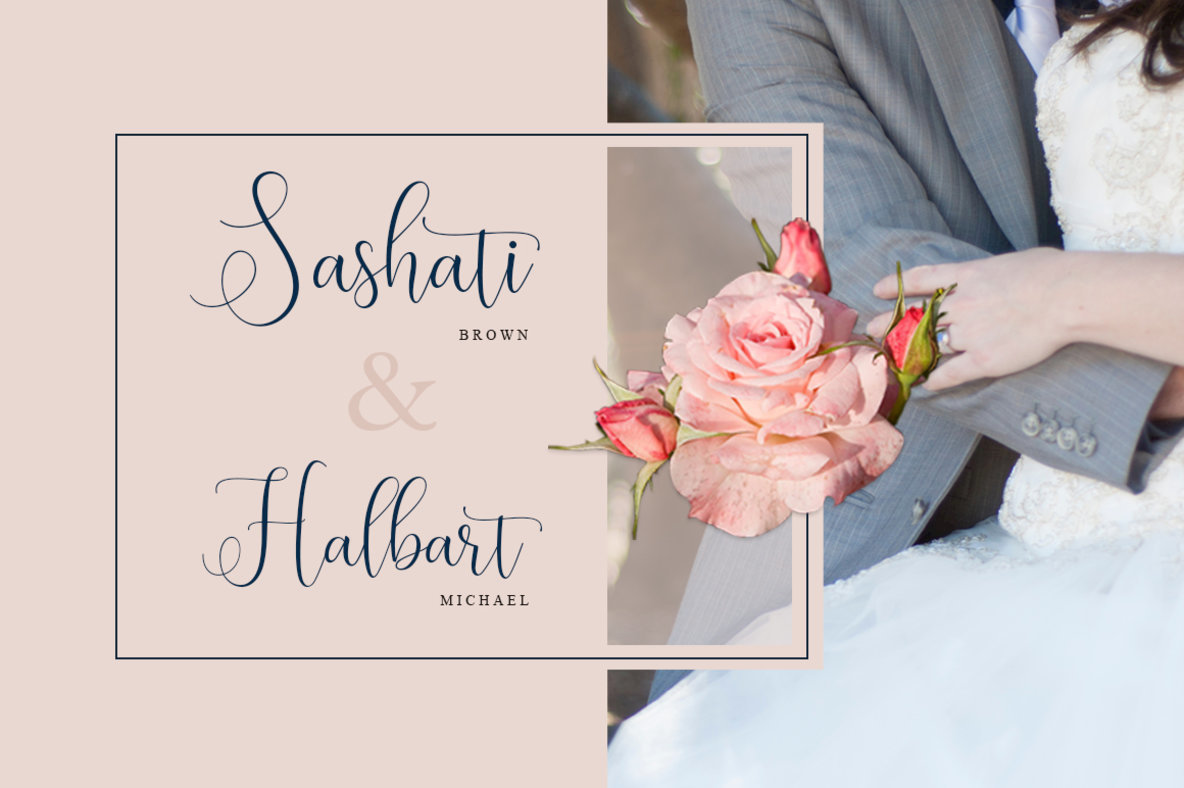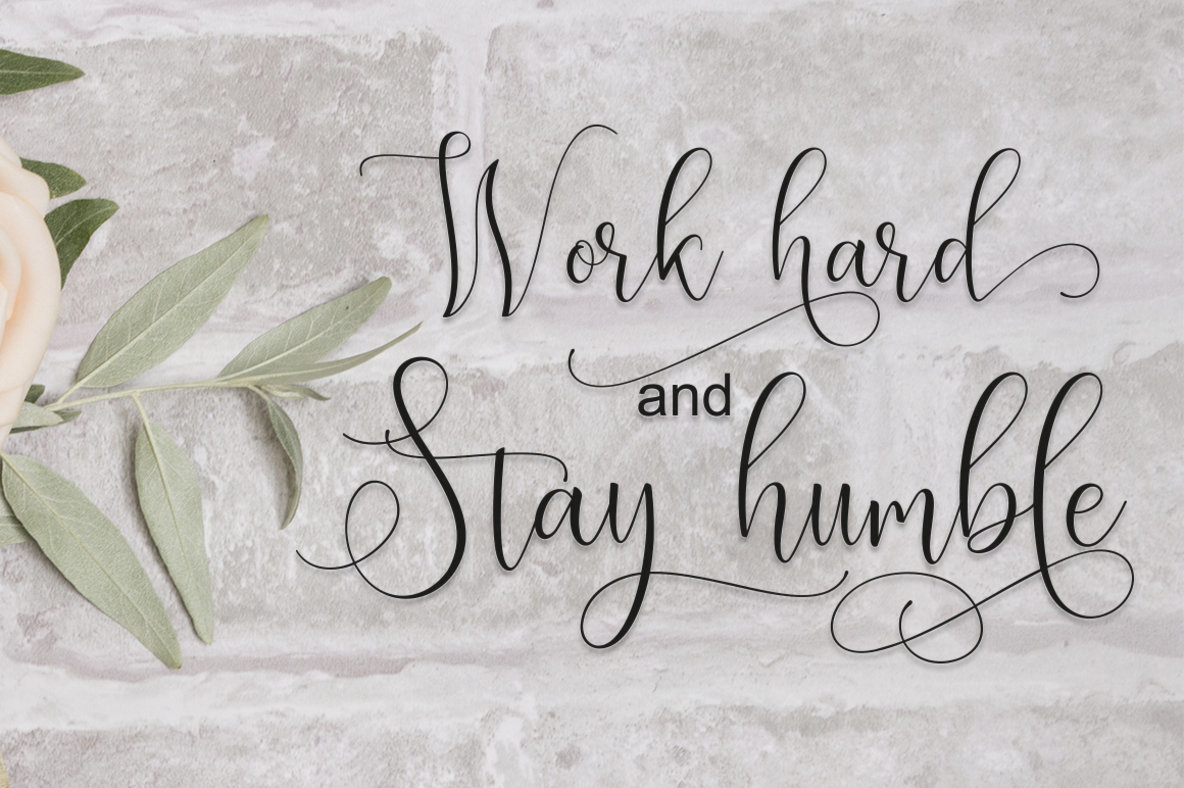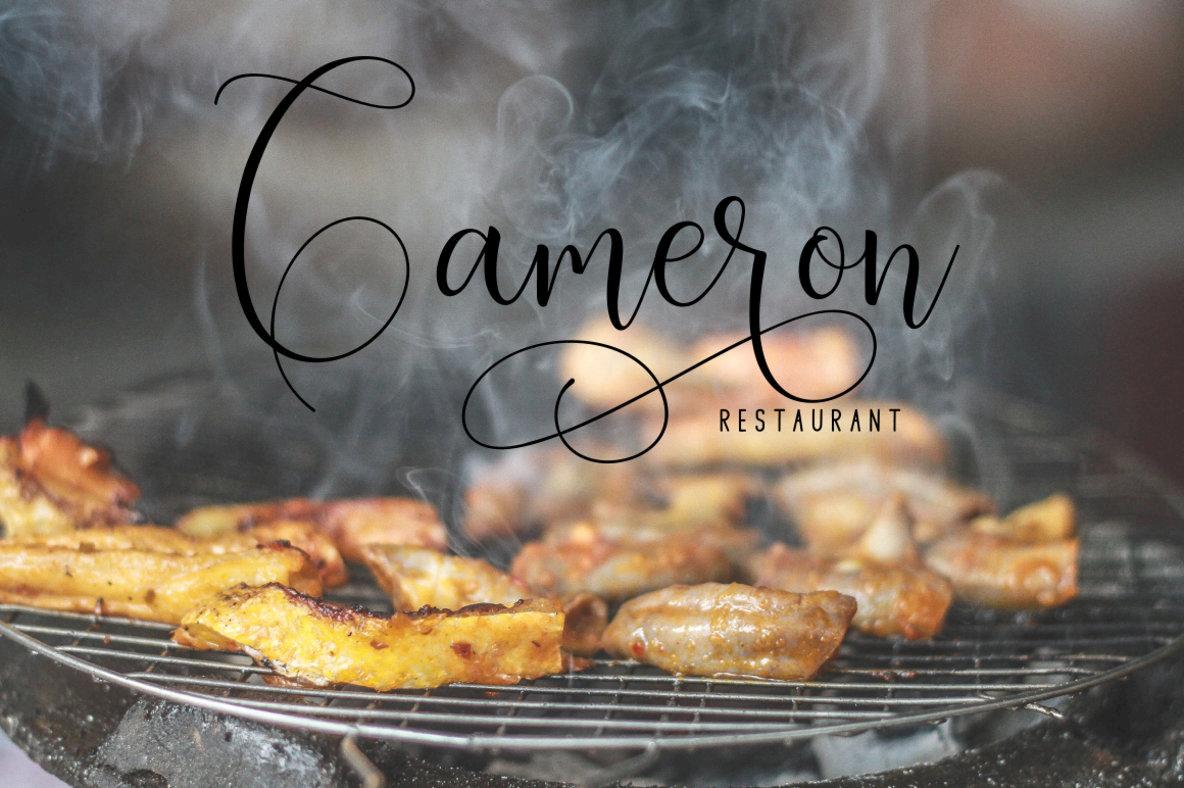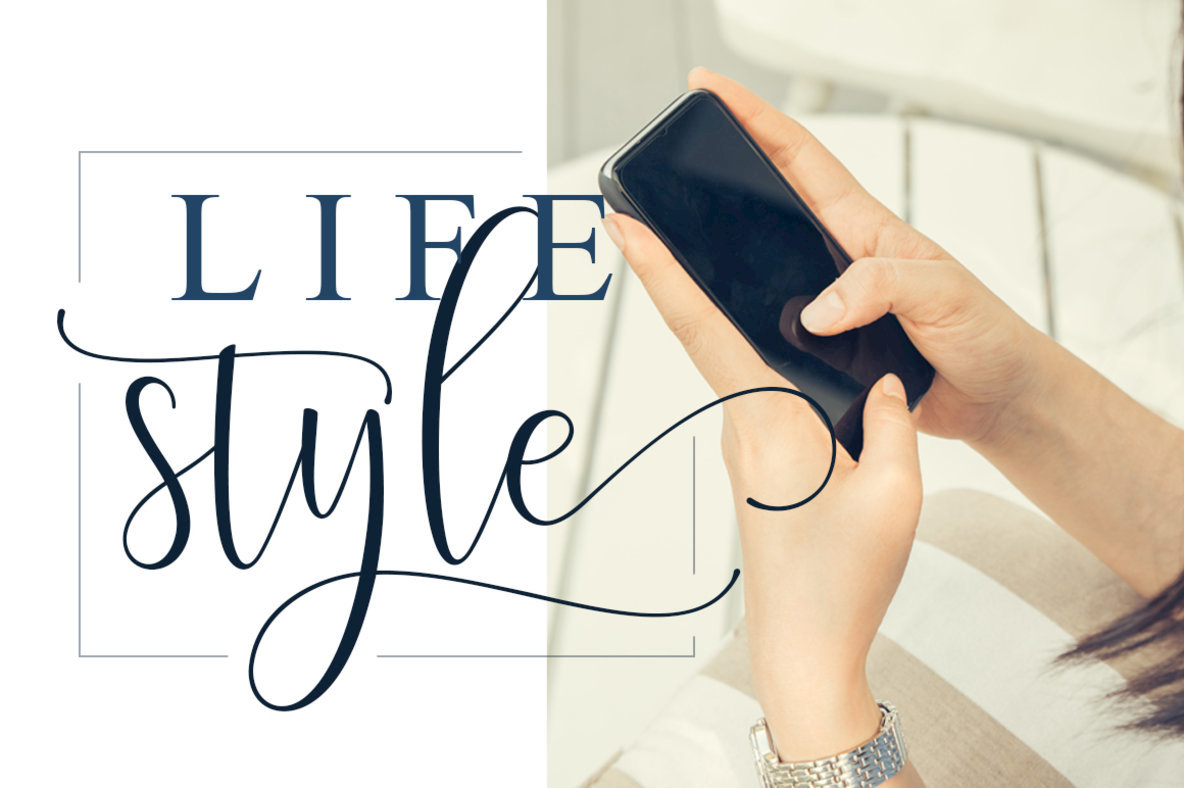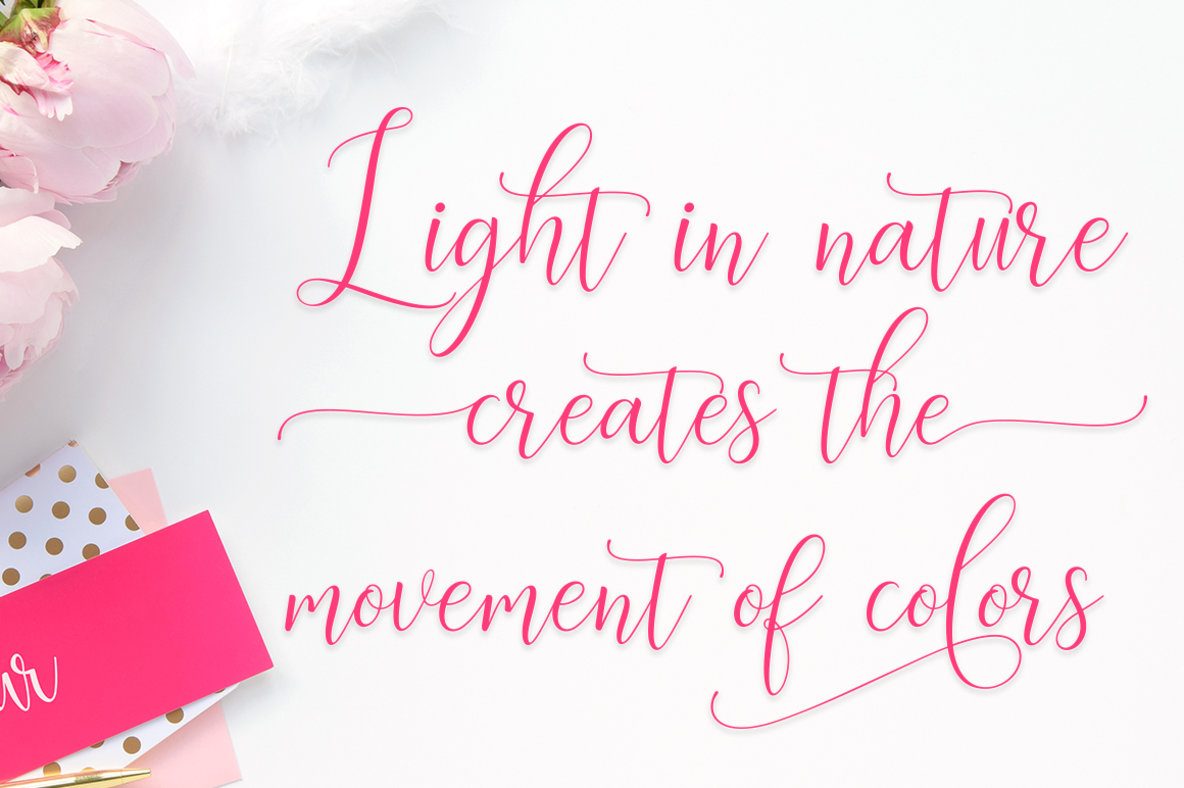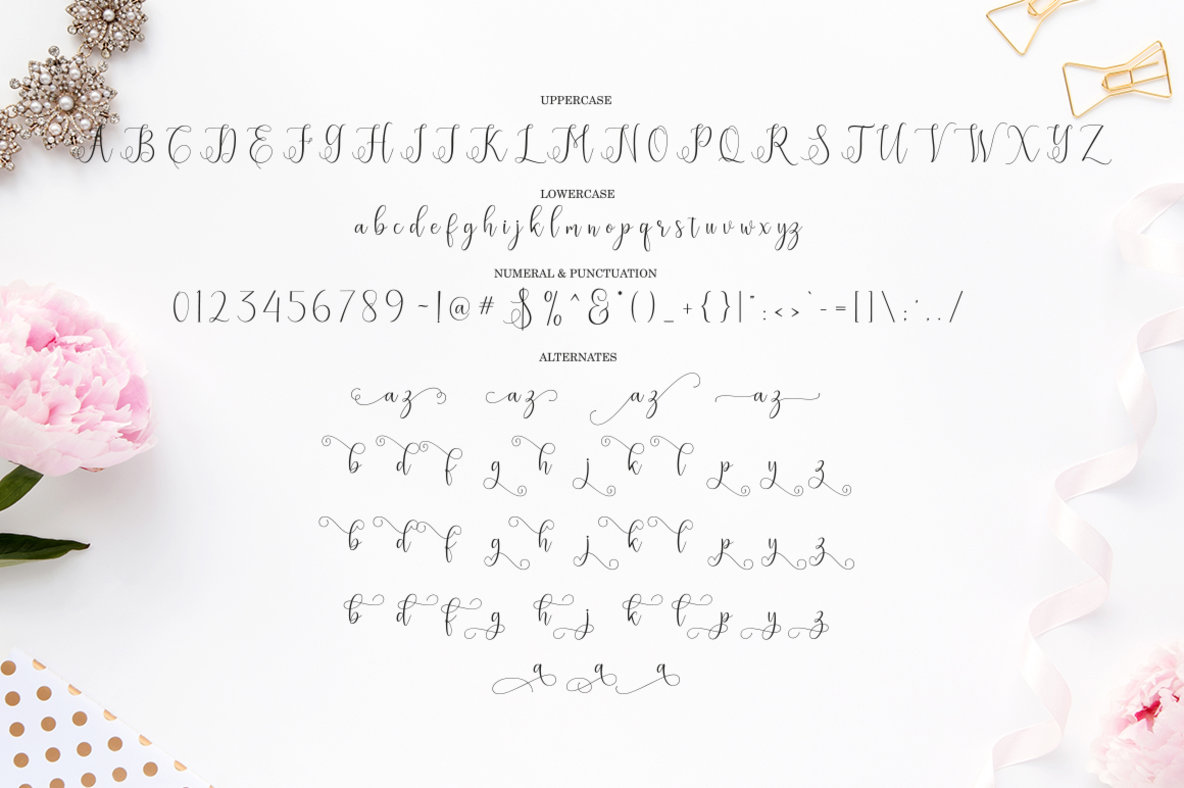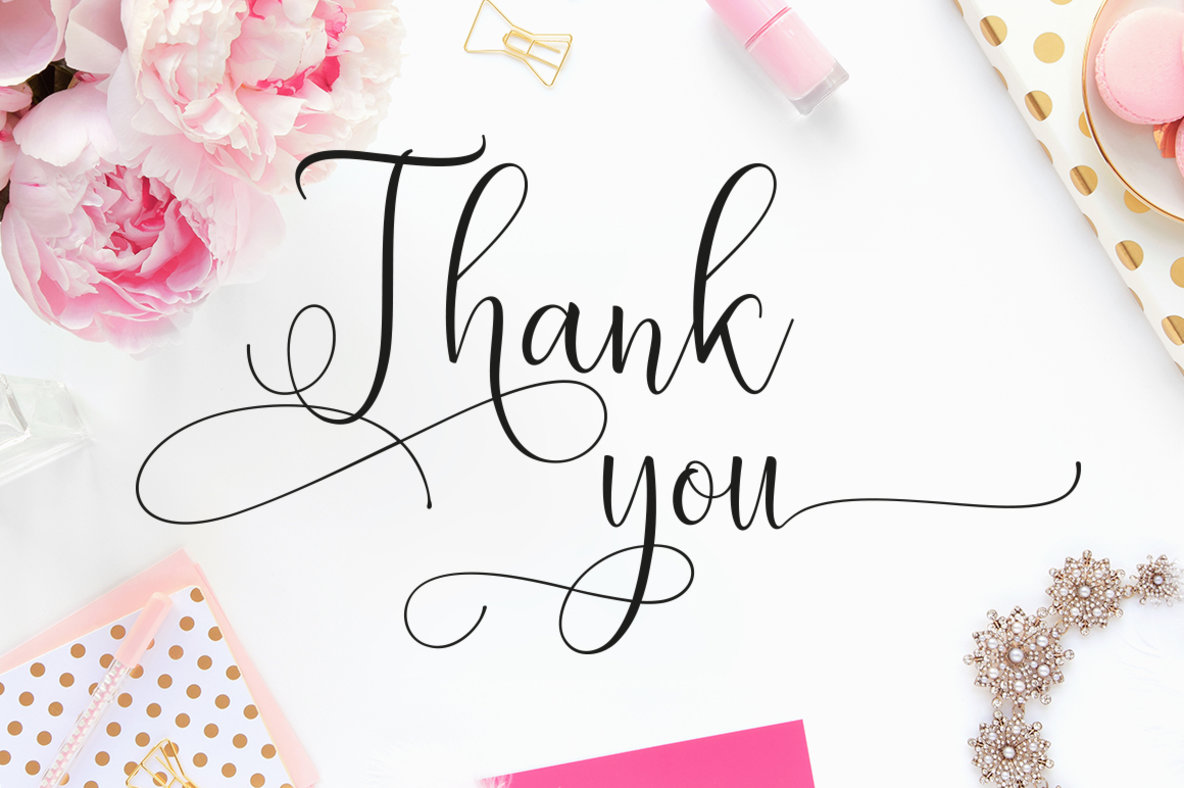
Eritta Font
Eritta is a delightful script font that marries contemporary elegance with a hand-crafted calligraphic style. Its decorative characters and gently flowing baseline make it perfect for a wide range of design applications including greeting cards, branding materials, business stationary, inspirational quotes, and eye-catching posters. Features: Eritta comes to life in OpenType-capable programs such as Adobe Illustrator, InDesign, Photoshop, Corel Draw, and Microsoft Word, providing flexibility for both novice and experienced designers. Embrace its versatility to add a graceful touch to your projects.Eritta: Artful Script with a Calligraphic Charm